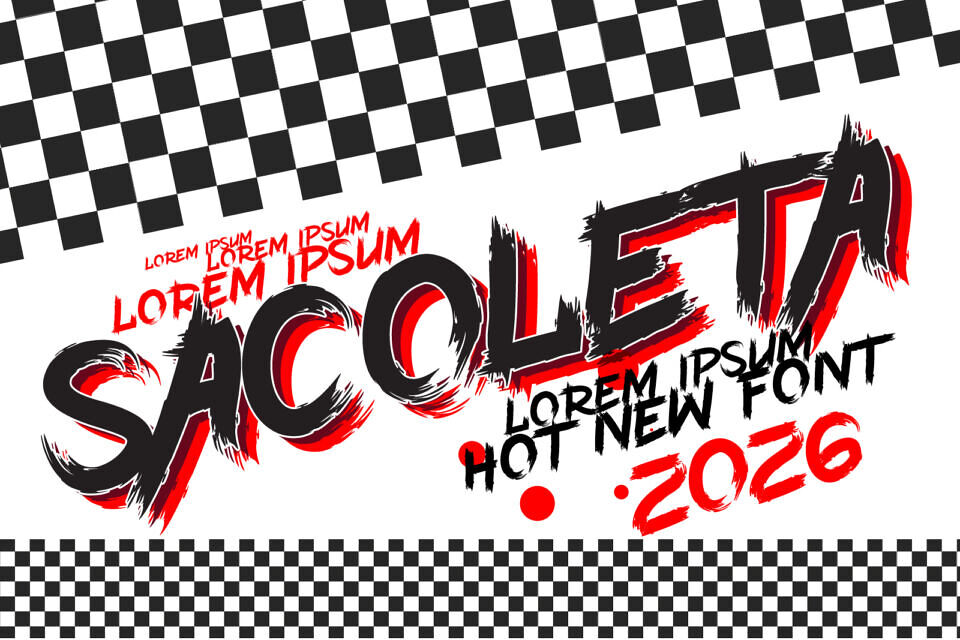
Vtks Sacoleta Font
Vtks Sacoleta is a raw, energetic display font that perfectly captures a gritty, urban aesthetic. Designed by Vtks Design, its textured, distressed letterforms mimic the spontaneous look of street art and hand-painted stencils.
With its aggressive lines and rebellious attitude, this font is ideal for high-impact projects like underground music posters, streetwear branding, skate culture graphics, and edgy editorial layouts. It’s the ultimate choice when your design needs to scream rather than whisper.